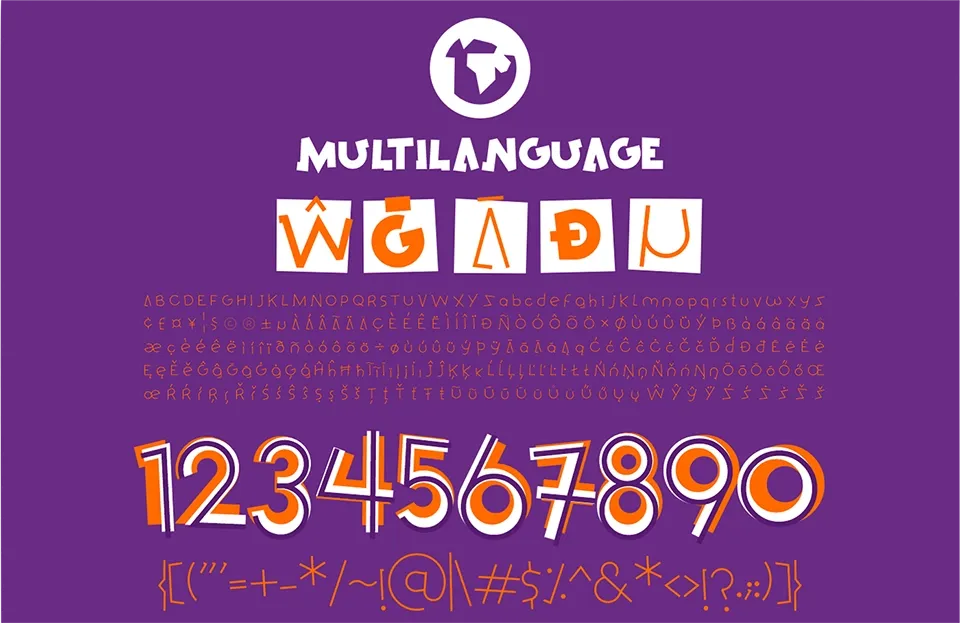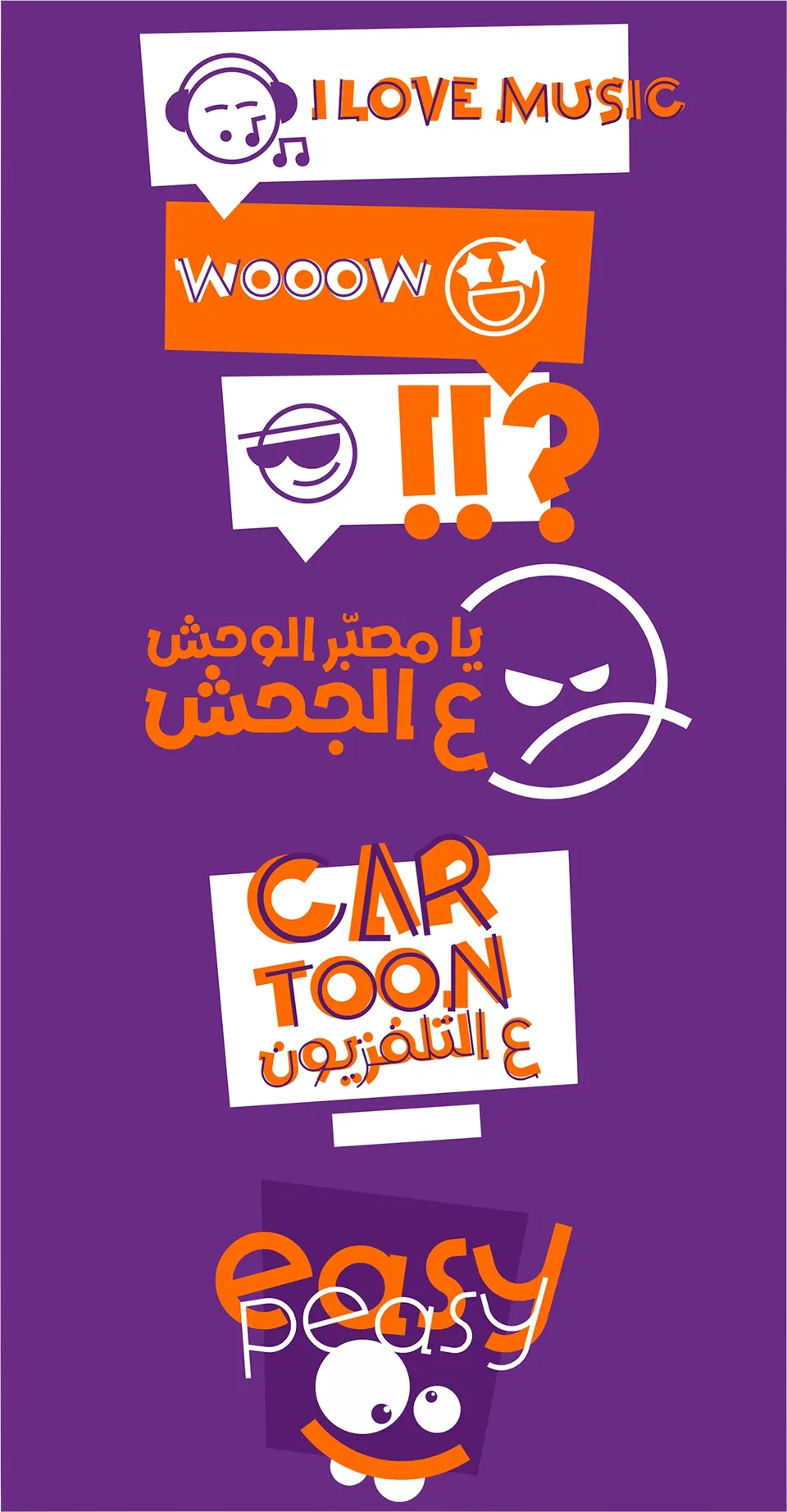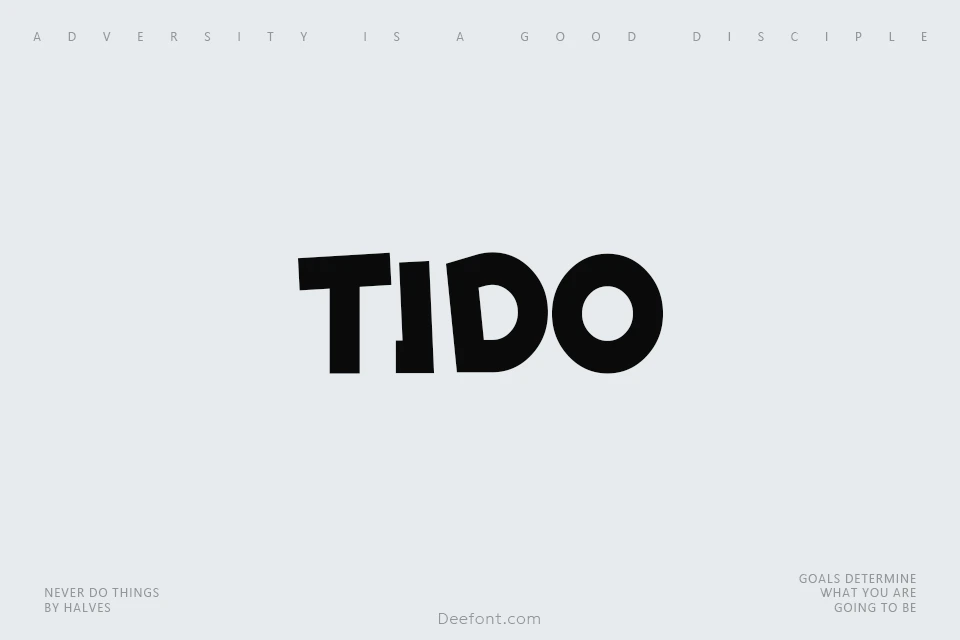
TIDO Font
TIDO Font is a vibrant and playful typeface designed to bring creativity and versatility to your projects. This unique font family supports both Latin and Arabic scripts, making it ideal for multilingual designs. Its bold, expressive forms are perfect for display purposes, including branding, signage, game design, and cartoon creation. TIDO Font also includes emoji elements, adding a fun and interactive touch to your work. With its distinctive style and adaptability, TIDO Font is a fantastic choice for designers looking to make their projects stand out with a lively and dynamic aesthetic.